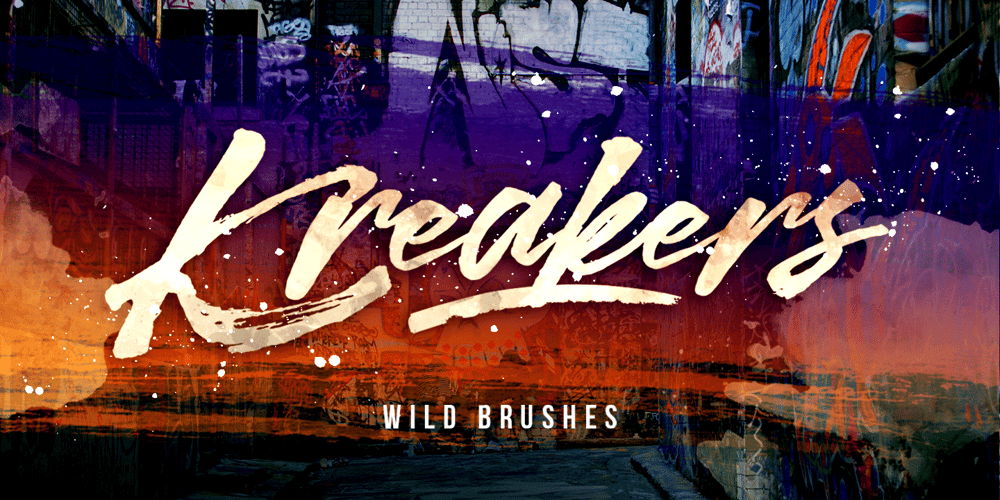
Kreakers Brush Font Family was designed by Putra Khan and published by Mindtype Co.. Kreakers Brush contains 2 styles and family package options. Kreakers is a hand brushed typeface, with authentic dry brush imperfections, and also provided some ligatures and Swashes. It will be great for Logotypes, Posters, Digital Lettering Arts, Clean Design, Branding Design, Signs, Merchandising and Social Media Posts. Features : Basic Latin A-Z and a-z Numbers Symbols Stylistic Set Ligature PUA Encode Multi-language Support I really hope you enjoy it – please do let me know what you think, comments and likes are always hugely welcomed and appreciated. More importantly, if you have any question, don’t hesitate to contact me by email : putrakhan05@gmail.com